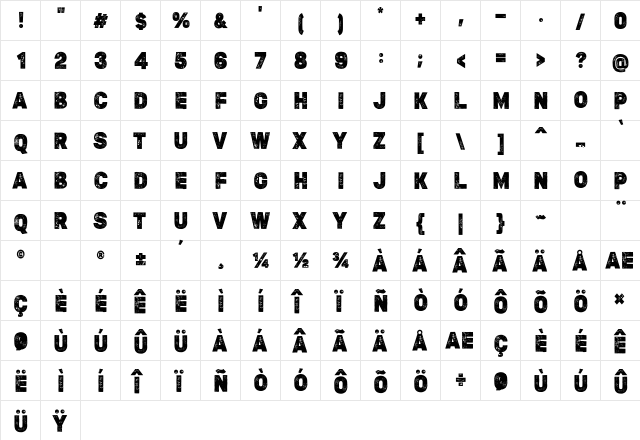
MEDIO VINTAGE ROUGH Regular
Design Context for MEDIO VINTAGE ROUGH Typeface
MEDIO VINTAGE ROUGH has the warm character of retro typography — evoking diners, record sleeves, and the golden age of print advertising.
Perfect for vintage-inspired branding, retro packaging, nostalgia campaigns, and period-accurate editorial design.
Font Pairing: Combine MEDIO VINTAGE ROUGH with a simple slab or neutral sans — period-accurate companions reinforce the vintage feel without competing for attention.
Pro Tip: Use MEDIO VINTAGE ROUGH for headlines and pull quotes rather than body copy — its personality is best appreciated in short, focused bursts.